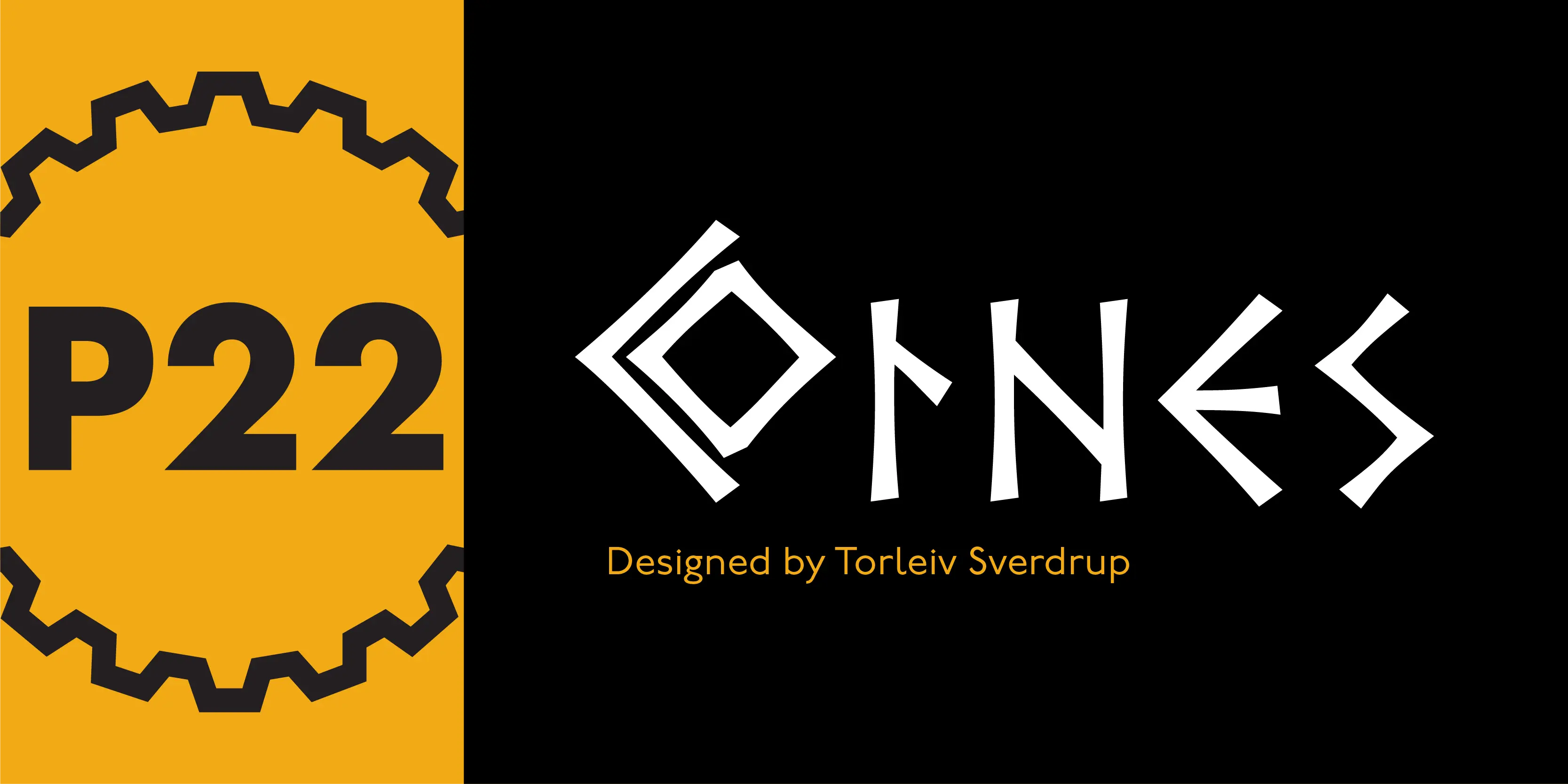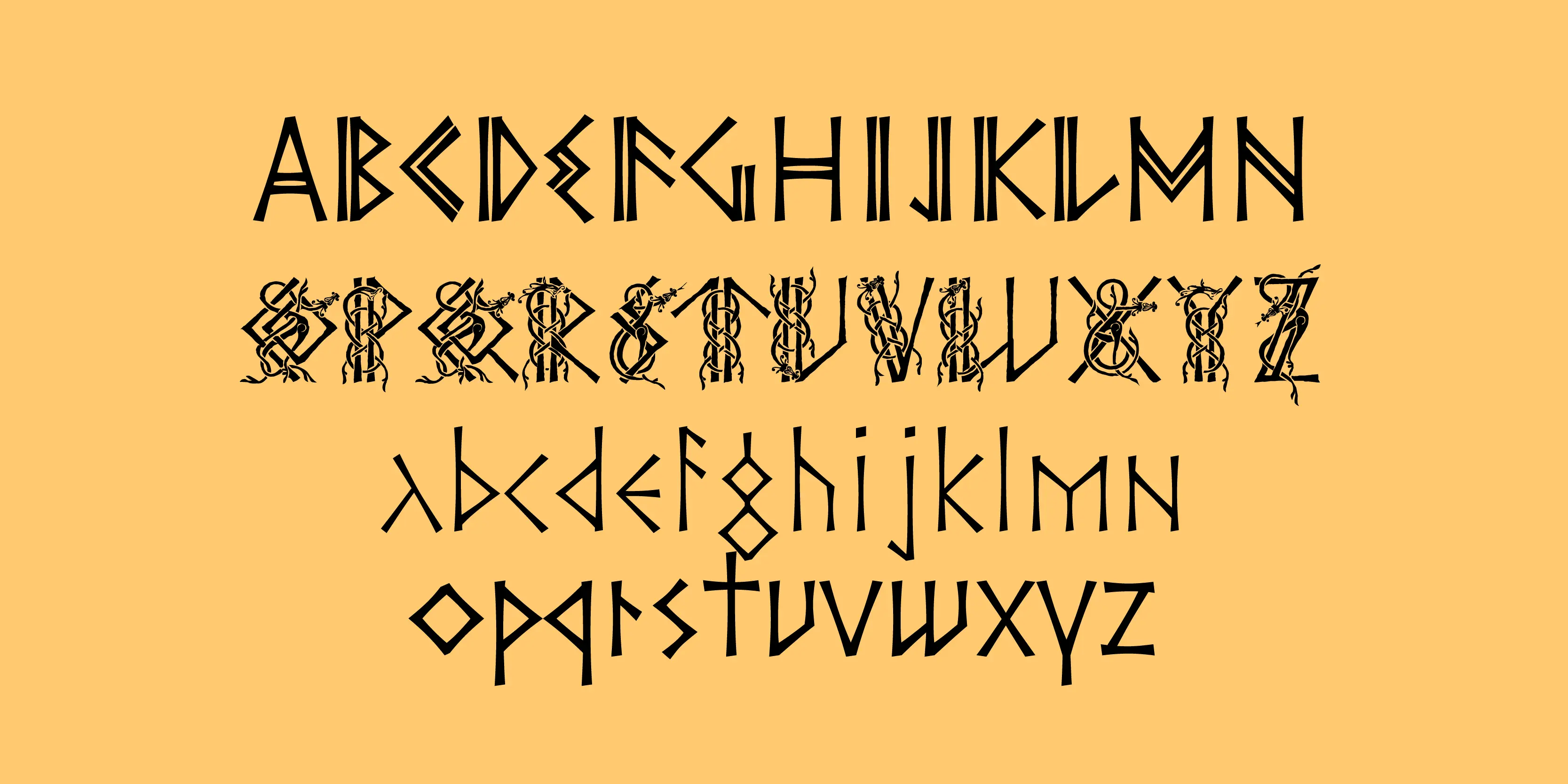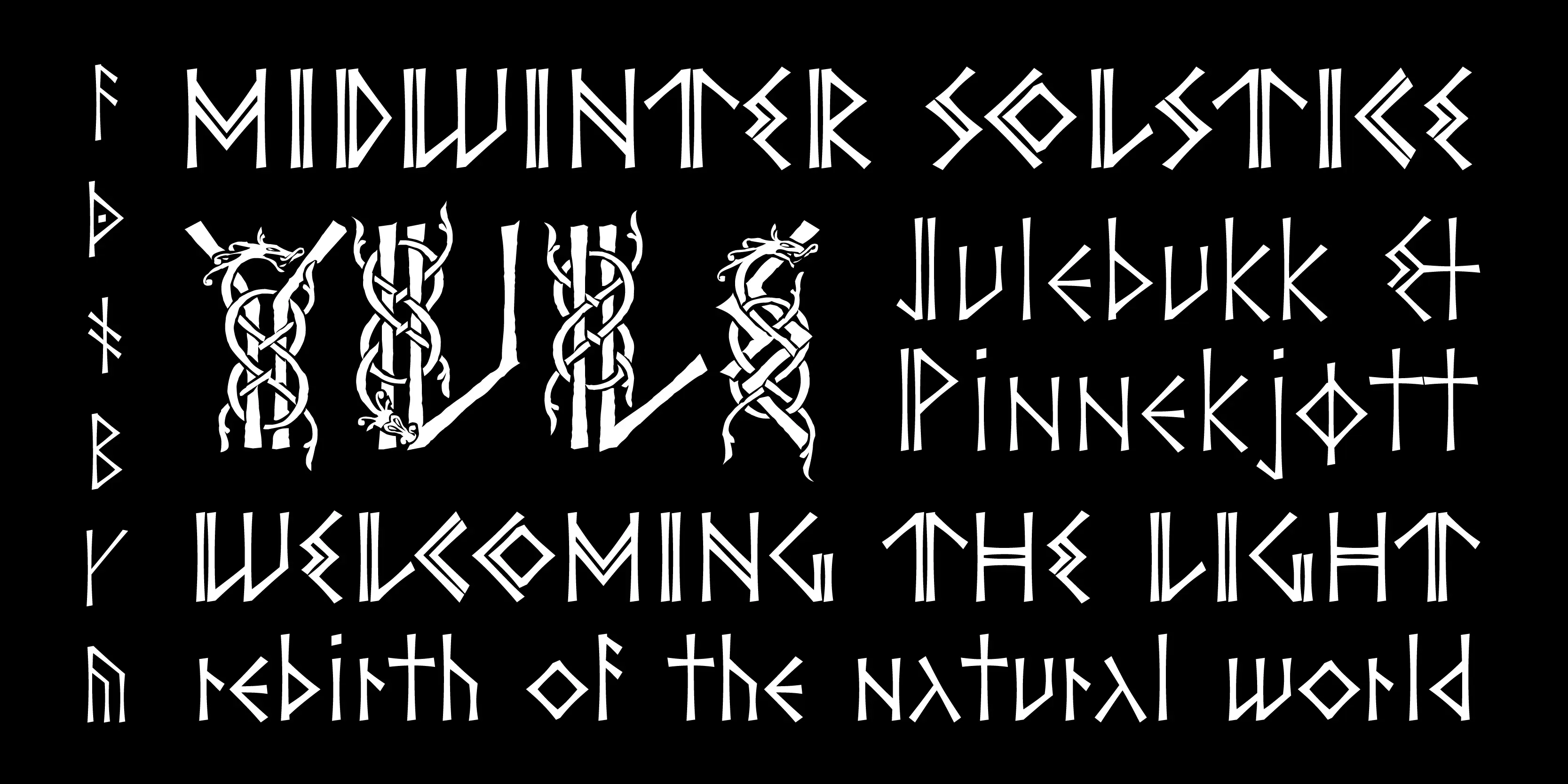
Ornes Font Family
Ornes
Ornes is inspired by the runic alphabet with ornamentation based on the woodcarvings of the Urnes Stave Church (Norway), an old wooden church from approximately 1150 CE. The woodcarvings and their symbolism reach back to the pre-Christian era. The Ornes Pro styles each contain the runic alphabet, ornamented caps, small caps, ornamented small caps and other pro OpenType features (as shown on the “Pro” tab). Ornes Ornamented Rustic Pro features a subtle uneven lowercase, but does not include a set of regular uppercase characters.
• Small Capitals
• Titling Capitals
Letter Runic
Letter Number Runic